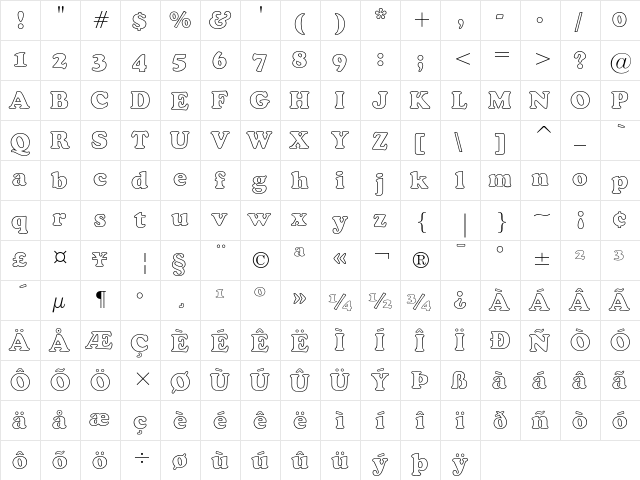
Bitstream Cooper Black Outline
Design Context for Bitstream Cooper Typeface
Bitstream Cooper brings ornamental detail and strong personality to headlines and identities, where visual impact matters more than quiet functionality.
Font Pairing: Pair with a clean neutral sans-serif for body copy to let Bitstream Cooper's character lead without overwhelming the composition.
Pro Tip: Treat Bitstream Cooper as the centrepiece of your typographic hierarchy. One strong heading set in a decorative face can carry an entire layout.